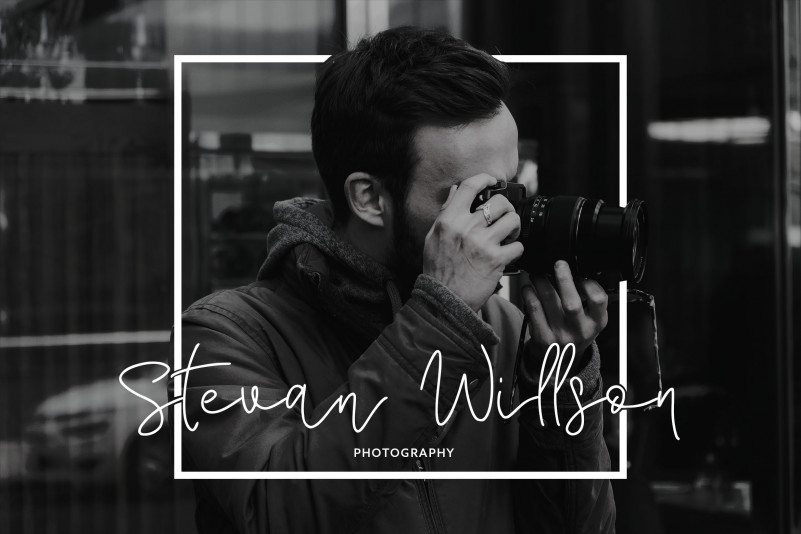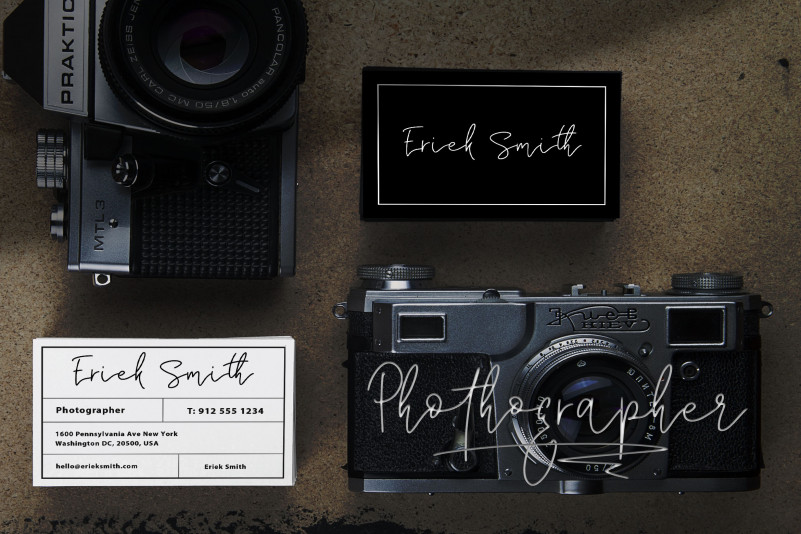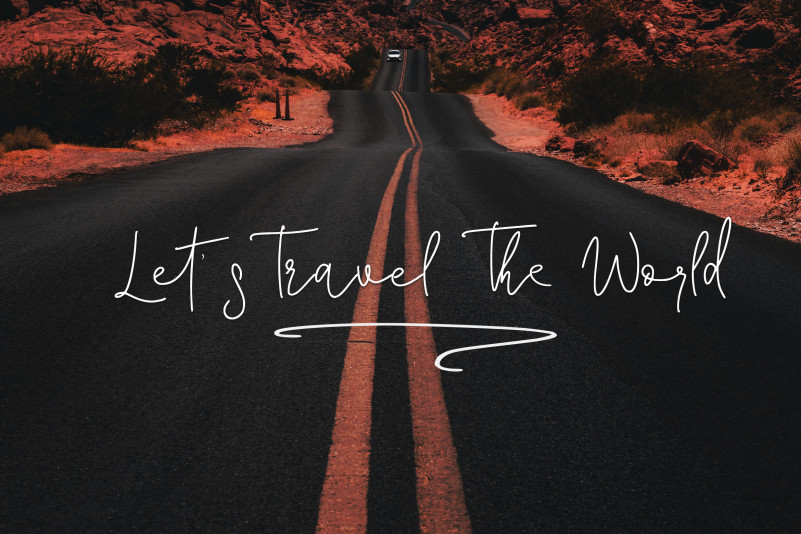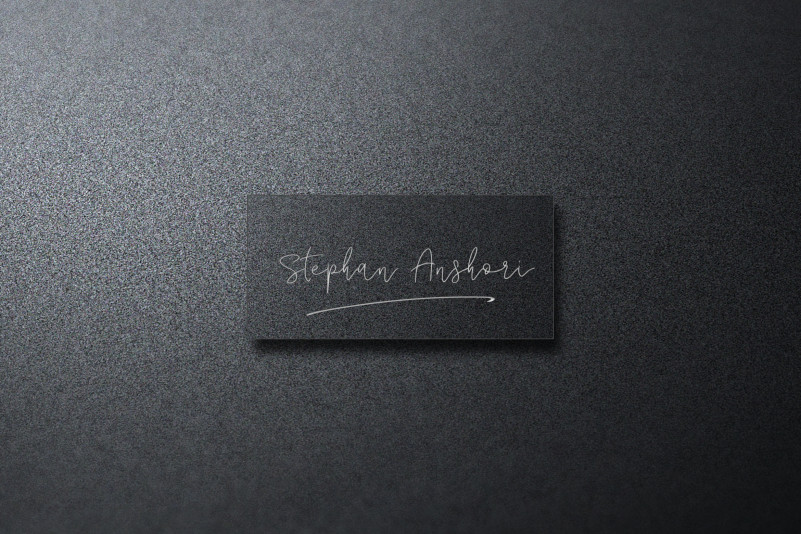
Corline Signature Font
I want to introduce my new font Corline Signature Font. that makes for gorgeous logos, posters, wedding invitations, blog posts, social media, poster headline, magazines, book titles, business cards, advertisements, qoute and more!
Corline Font includes over 50 ligatures to make everything look totally hand-done, and alternates for each letter.
• 50+ Ligatures